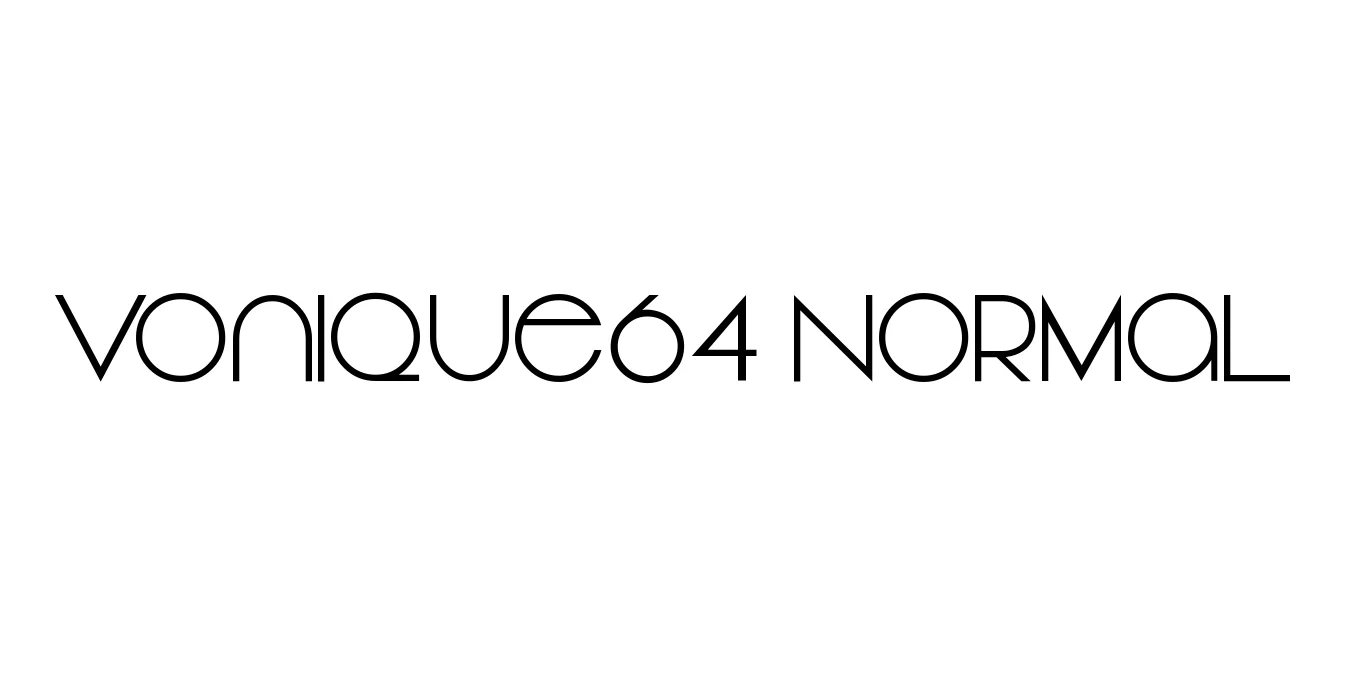
Vonique64 Normal
Designed by Simeon Outten
Vonique 64 Normal is a sophisticated sans-serif display font that draws heavy inspiration from the world of high-fashion and luxury branding. Created by Simeon Outten, this typeface features elongated vertical lines and clean, geometric curves that evoke a sense of modern elegance and timeless style. Its sleek architecture makes it particularly effective for large-scale typography where its unique character forms can truly shine.
The font's design is characterized by a high contrast in its minimalist approach, making it a staple for editorial layouts, upscale packaging, and premium digital content. Its versatile nature allows it to serve both as a bold statement piece in fashion magazines and as a refined element in professional corporate identities. Vonique 64 remains a popular choice for designers seeking a balance between contemporary minimalism and classic luxury aesthetics.
Vonique64 Normal Best Uses
Ideal for headlines and titles in high-end magazines and lookbooks.
Perfect for creating sophisticated logos and brand identities for upscale products.
Creates a chic and professional look for hero sections and landing pages.
Adds a touch of elegance to promotional posts on Instagram and Pinterest.